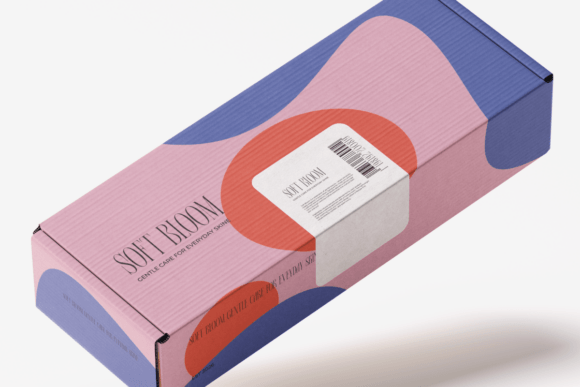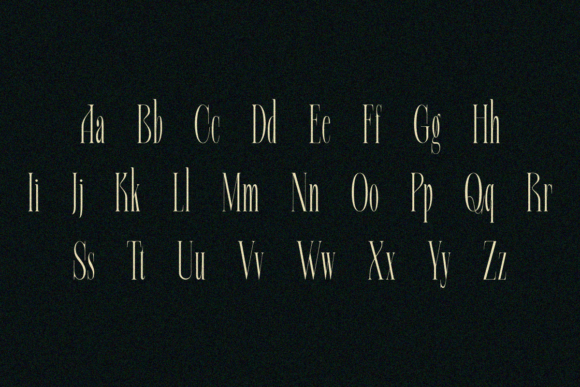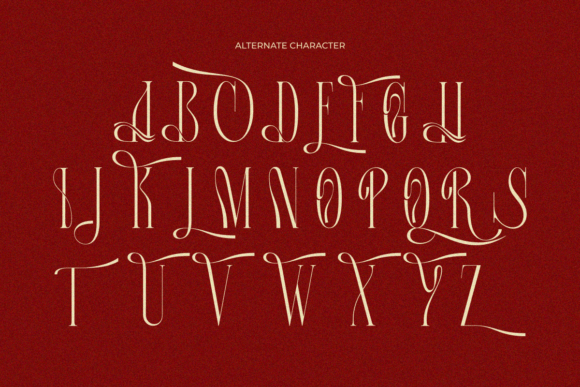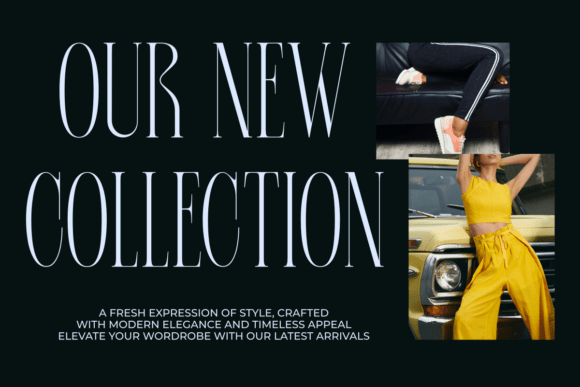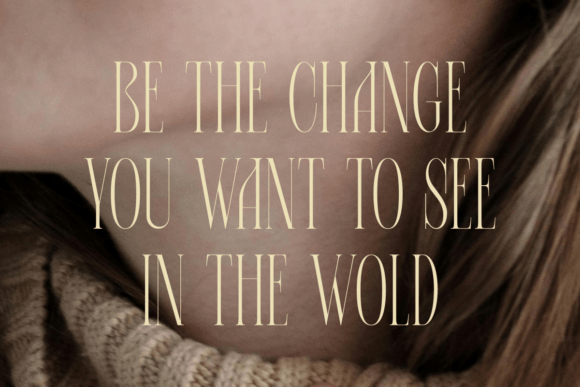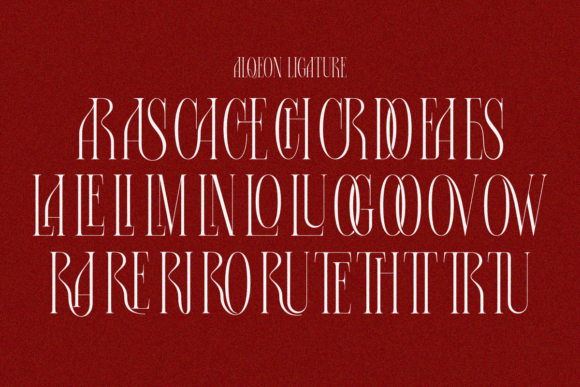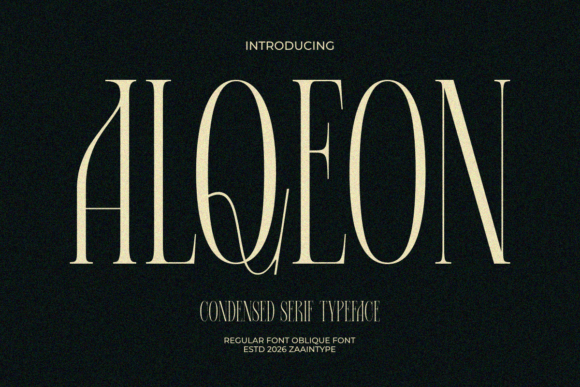
Discover the Elegance of Alqeon Font: A Modern Typeface for Sophisticated Designs
In the world of typography, fonts play a crucial role in conveying the tone and personality of a brand or design. For designers and crafters seeking a typeface that embodies modernity with a touch of elegance, Alqeon Font stands out as an exceptional choice. This article delves into the characteristics, uses, and benefits of Alqeon Font, highlighting why it has become a go-to for projects that demand a premium and professional aesthetic.
The Essence of Alqeon Font
Alqeon Font is a meticulously designed typeface that strikes a perfect balance between firmness and refined detail. This balance is what sets Alqeon apart, offering a clean yet sophisticated appearance that can elevate any design. Whether it’s for branding, editorial content, fashion projects, or digital designs, Alqeon brings a level of sophistication and professionalism that is hard to match.
Key Features of Alqeon Font
- Modern Character with Elegance: Alqeon radiates a modern character but with a subtle touch of elegance, making it versatile for various design applications.
- Precision Crafted: Each curve and line in Alqeon is crafted with precision, ensuring a harmonious visual rhythm that enhances readability across different sizes.
- Versatility: Its design allows it to work effectively both as a strong headline font and as aesthetically pleasing supporting text, making it incredibly versatile for designers.
- Premium and Professional Feel: Alqeon is well-suited for projects that emphasize a premium and professional feel, including branding, editorial, fashion, and digital designs.
Applications of Alqeon Font
The versatility of Alqeon Font makes it suitable for a wide range of applications. Here are some areas where Alqeon truly shines:
- Branding: For companies looking to establish a strong and elegant brand identity, Alqeon can be a valuable asset. Its modern yet sophisticated look can help brands stand out in competitive markets.
- Editorial Design: In magazines, newspapers, and digital publications, typography is key to engaging readers. Alqeon’s readability and aesthetic appeal make it an excellent choice for article texts and headlines.
- Fashion: The fashion industry demands high levels of sophistication and style in its visual communications. Alqeon Font, with its elegant and modern character, is perfectly suited for fashion magazines, brand advertisements, and website designs.
- Digital Designs: For websites, apps, and digital platforms, user interface (UI) and user experience (UX) are crucial. Alqeon’s clean and professional appearance can enhance the digital experience, making it more engaging and user-friendly.
Why Choose Alqeon Font?
Choosing a font for a design project can be overwhelming with the numerous options available. However, Alqeon Font offers several compelling reasons to consider it for your next project:
- Unique yet Versatile: While it has a distinct character, Alqeon is versatile enough to work well in various contexts, from digital interfaces to print materials.
- Legibility: Its design prioritizes readability, ensuring that your message is communicated effectively, regardless of the medium.
- Professionalism: Alqeon lends a level of professionalism to designs, making it ideal for projects where a sophisticated look is desired.
| Author | zaaintype |
Alqeon Font represents a modern typeface with a subtle touch of elegance, designed to meet the demands of contemporary design projects. Its balance of firmness and refined detail, precision-crafted curves, and versatile style make it an excellent choice for designers and crafters aiming to achieve a premium and professional look. Whether for branding, editorial, fashion, or digital designs, Alqeon Font is poised to elevate the aesthetic and impact of your work.
As the world of design continues to evolve, having a font like Alqeon in your toolkit can be a significant advantage. It not only meets the current design trends but also stands the test of time, ensuring your projects look stylish and sophisticated for years to come.